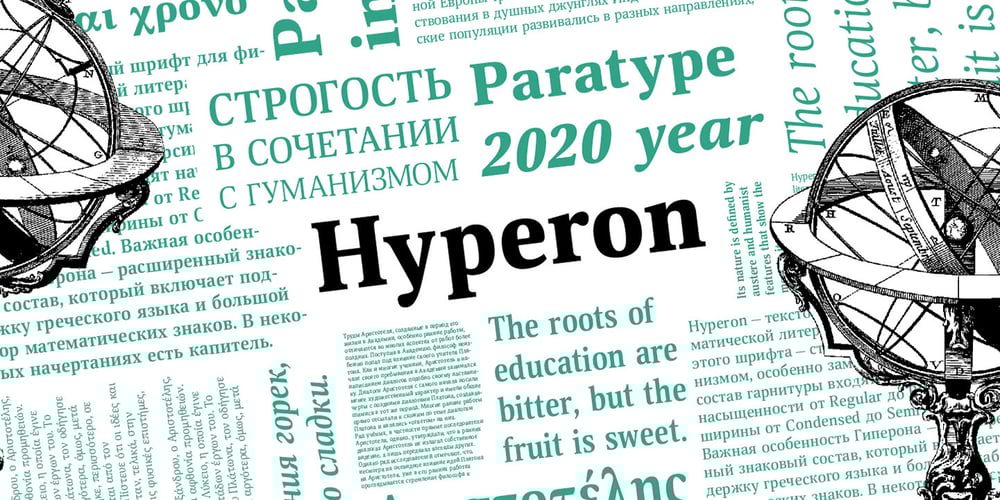
Hyperon
Hyperon font
Hyperon Font Family was designed by Natalia Vasilyeva and published by ParaType. Hyperon contains 22 styles and family package options. Hyperon is a text typeface, which is especially useful for math and physics literature. Its nature is defined by austere and humanist features that show the most in italic. The typeface includes weights from Regular to Black and widths from Condensed to Semi Expanded. What stands out for Hyperon is the extended character set, with added Greek and lots of mathematical signs. Some styles have small caps. The typeface was designed by Natalia Vasilyeva and released by Paratype in 2020.